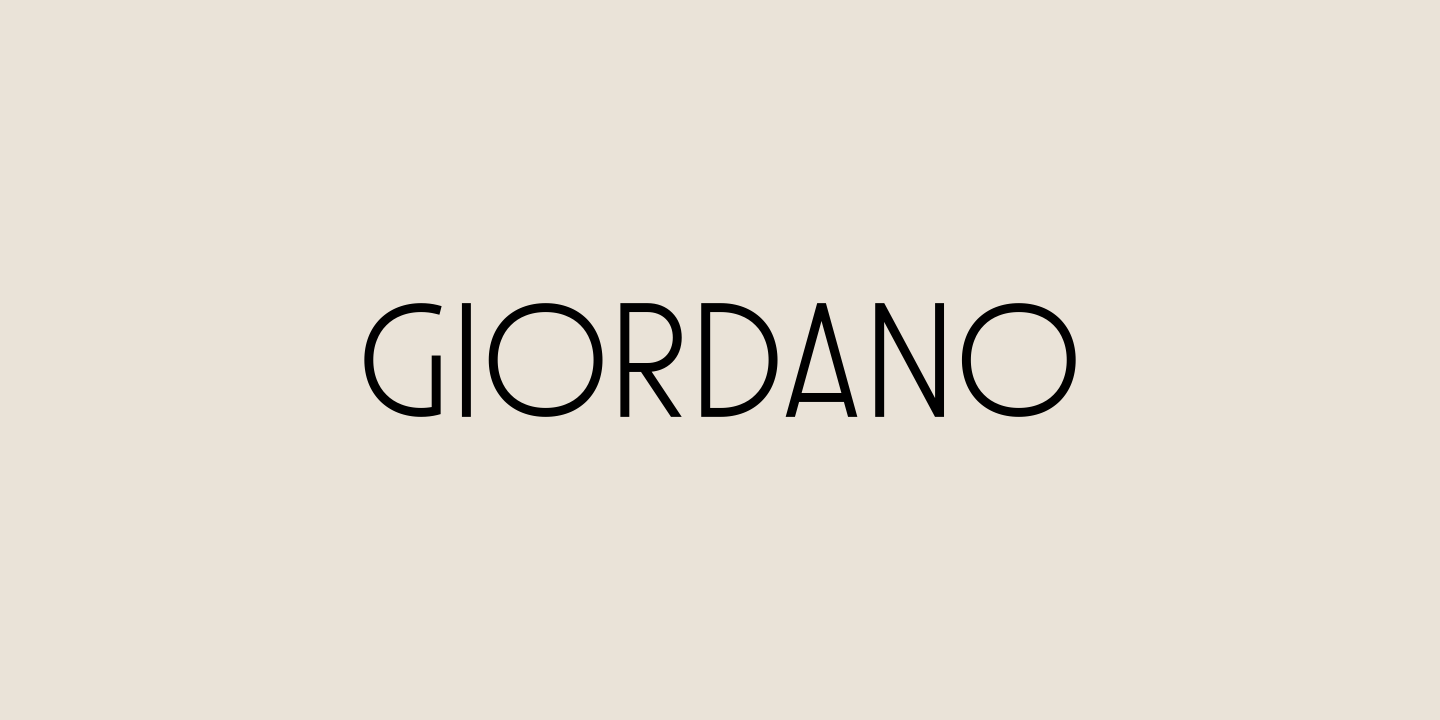
Giordano Font is ideal for Italian restaurant branding, Renaissance art exhibitions, classical opera programs, Italian cultural festivals, fashion house communications, luxury Italian brands, Tuscan winery marketing, Italian language learning materials, Mediterranean cuisine menus, Italian heritage museums, Vatican-inspired designs, and authentic Italian artisan products.
This font is exciting because it captures the timeless elegance and artistic sophistication of Italian Renaissance masters, featuring graceful letterforms that flow with the same passionate creativity and cultural refinement that produced history's greatest artistic achievements in the birthplace of Western civilization. The sophisticated character design embodies both the classical proportions of Roman architecture and the innovative spirit of Renaissance humanism, creating typography that feels authentically rooted in centuries of Italian artistic tradition while remaining perfectly suited for contemporary applications. Each letter radiates the warmth and expressive beauty that defines Italian culture's enduring contribution to art, literature, and design.
The Giordano Font family includes regular and italic weights with complete character sets featuring Italian-inspired numerals, elegant punctuation marks, and decorative elements that echo Renaissance calligraphy and classical Italian design motifs. Advanced versions may offer additional stylistic variants with enhanced artistic flourishes, alternate characters that mimic traditional Italian manuscript lettering, and ornamental elements celebrating Italian cultural heritage and artistic traditions.
Whether you're developing authentic Italian business branding, creating cultural educational content, or designing luxury Mediterranean lifestyle materials, Giordano Font Free Download provides the artistic sophistication and cultural authenticity your project needs to honor Italian heritage while creating lasting emotional connections with audiences who appreciate genuine cultural refinement. This typeface transforms ordinary text into passionate expressions that celebrate the beauty and creativity of Italian artistic excellence. The font's cultural character makes it perfect for brands and projects that value artistic tradition and Mediterranean sophistication. Italian culture enthusiasts and luxury brand designers will love how this font brings authentic Renaissance elegance to their work with its genuinely artistic and culturally respectful character that honors Italy's magnificent creative legacy.